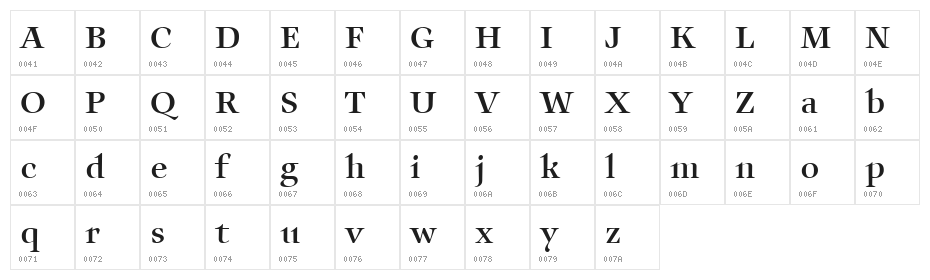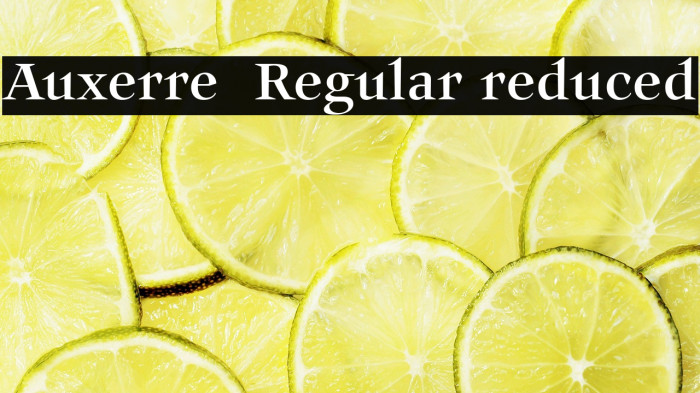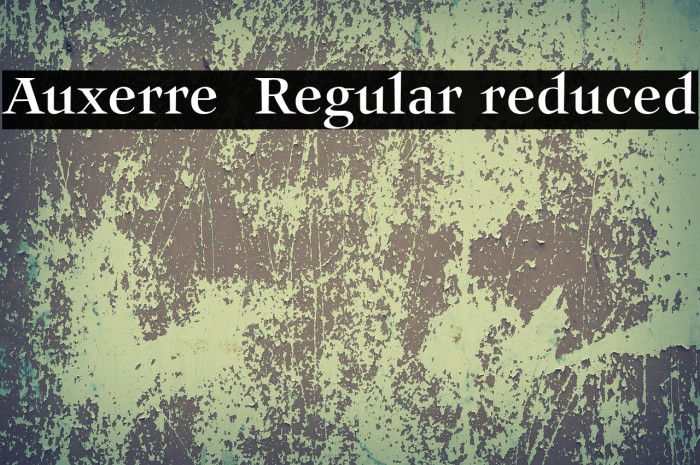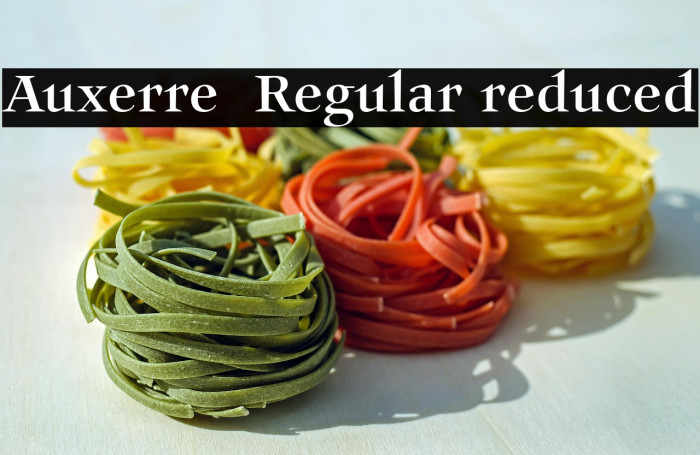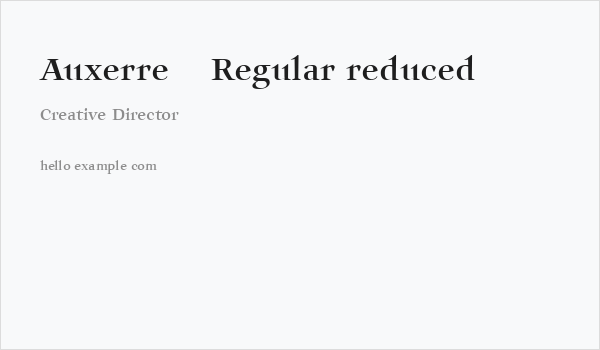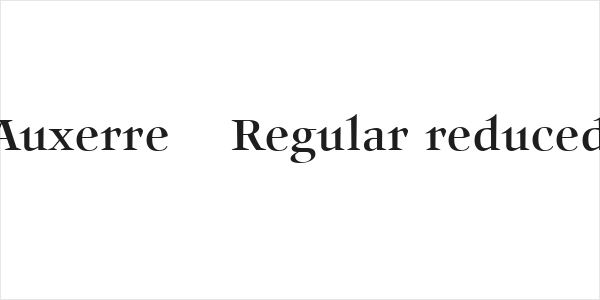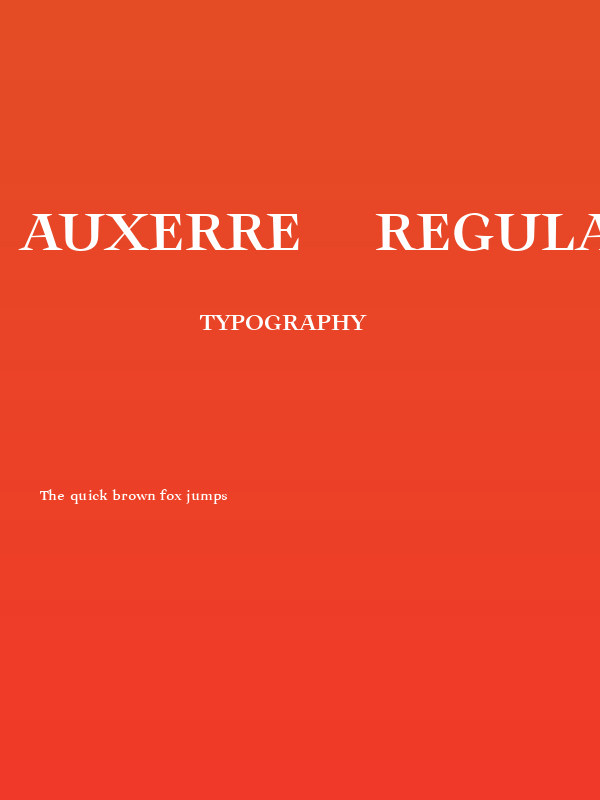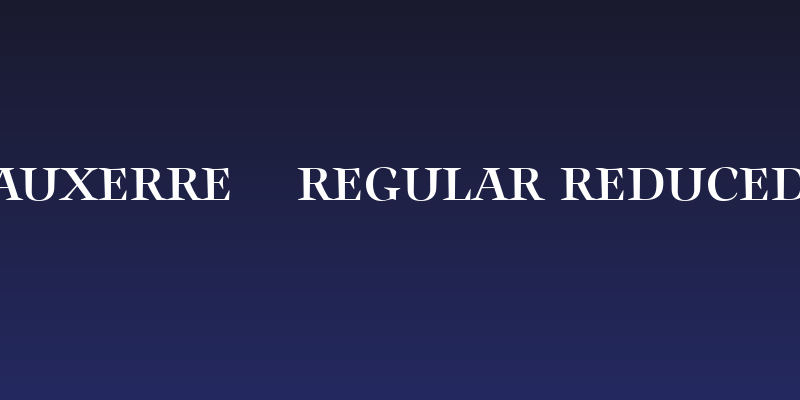
Auxerre 55 Regular reduced Font
Auxerre 55 Regular reduced Description
This font exhibits a classic serif style with elegant, sharp serifs and a balanced structure. The uppercase letters are bold and commanding, while the lowercase letters maintain a graceful flow. The overall design is reminiscent of traditional typefaces, yet it incorporates modern elements that enhance readability. The strokes are consistent, with moderate contrast that adds to its legibility. This font is versatile, suitable for both digital and print media, and can be used effectively in various design projects.
| Proposed Projects | Ideal for editorial design, book covers, formal invitations, and branding materials that require a touch of elegance and tradition. |